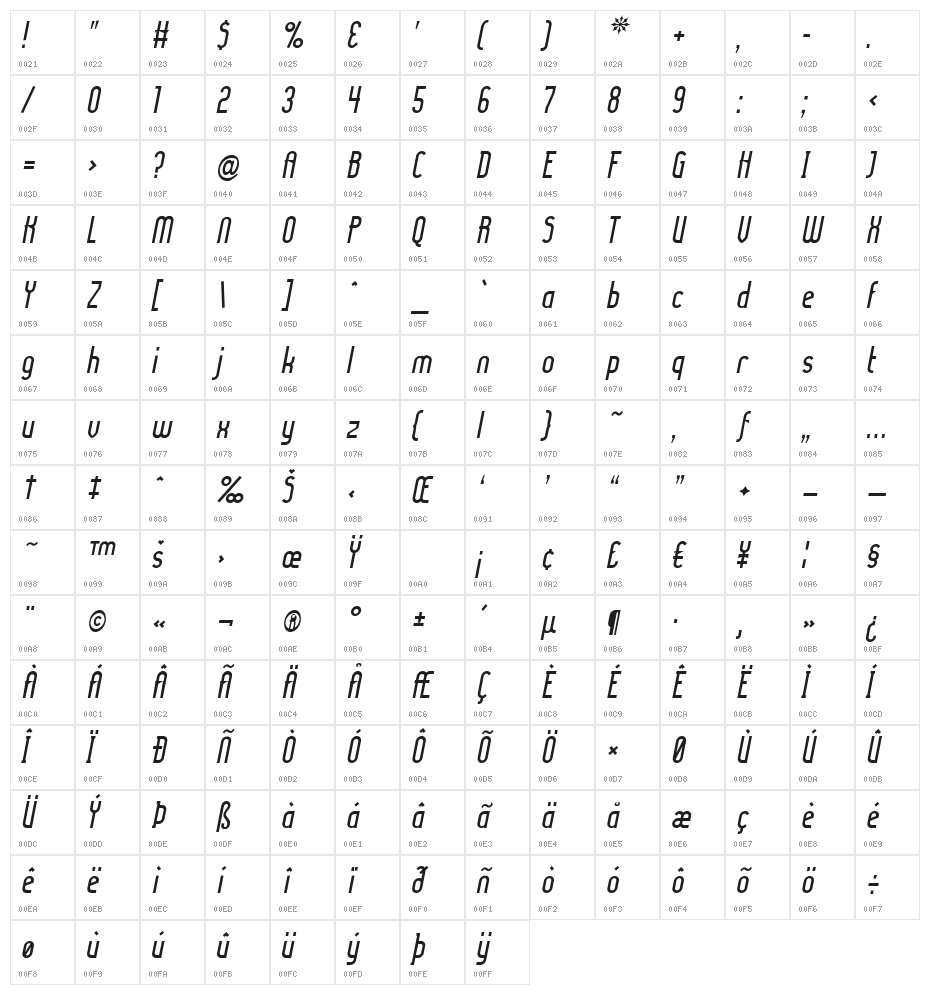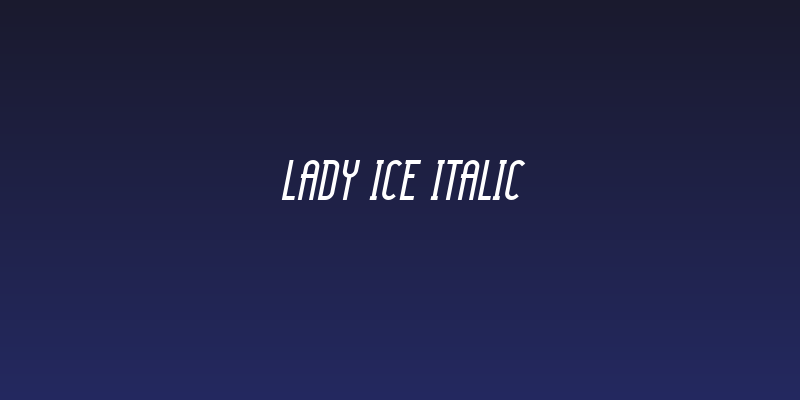
Lady Ice Italic Font
Lady Ice Italic Description
This font features a sleek, italicized design with a modern and dynamic appearance. The characters are slightly slanted, giving a sense of motion and elegance. The strokes are consistent and smooth, with a medium thickness that provides good readability while maintaining a stylish look. The uppercase letters are tall and narrow, while the lowercase letters are more rounded, creating a balanced contrast. The numerals are clear and distinct, matching the overall style of the alphabet. Special characters are well-integrated, maintaining the font's cohesive aesthetic.